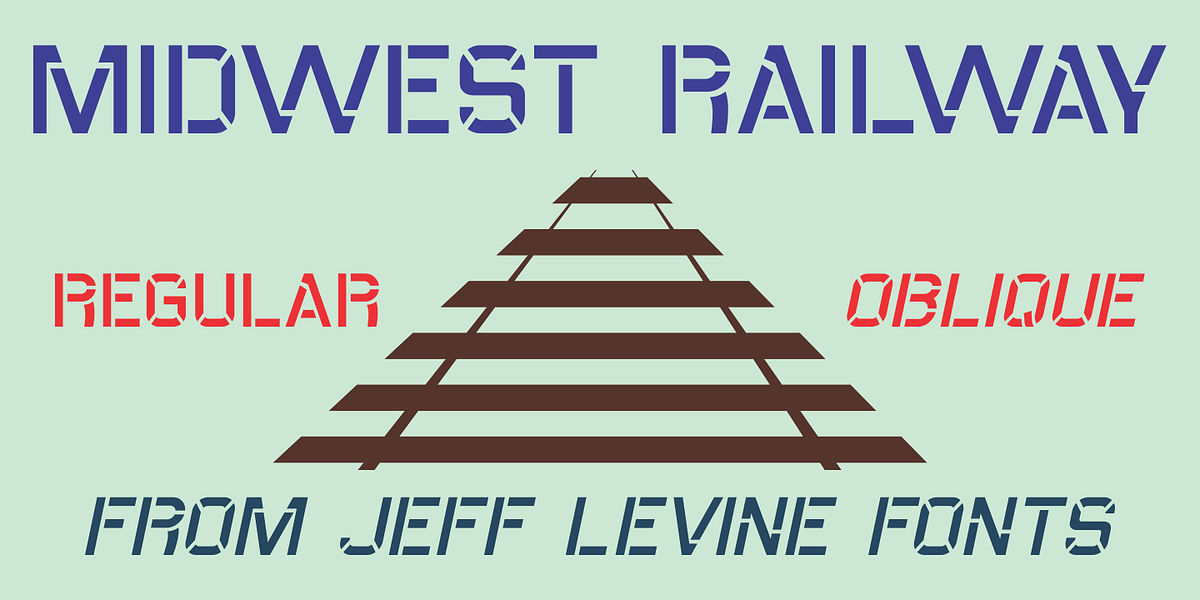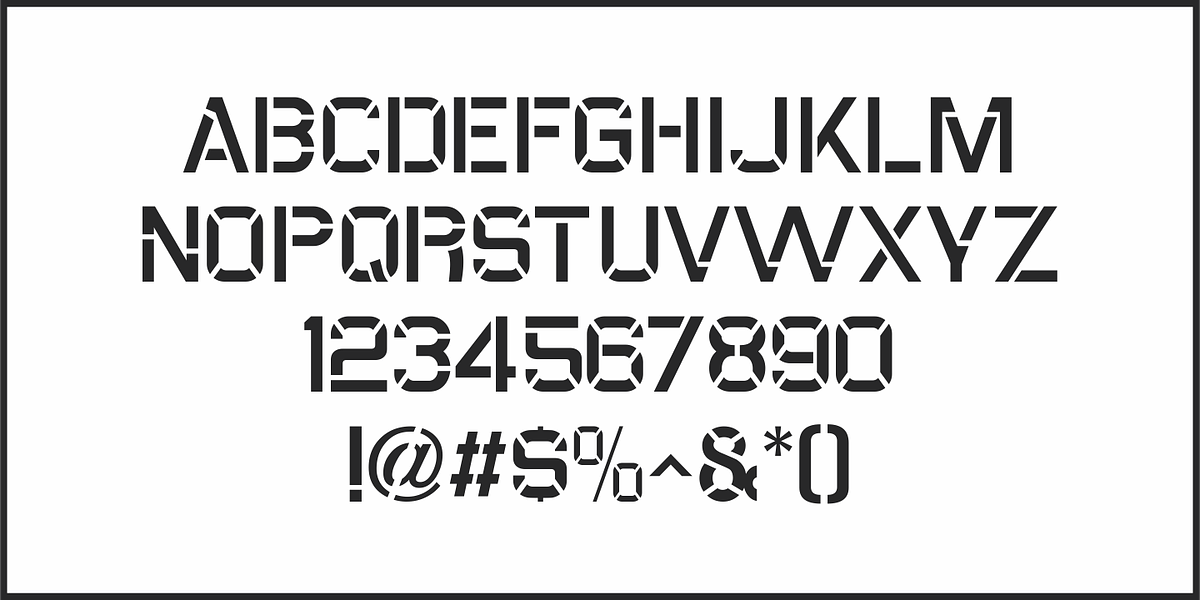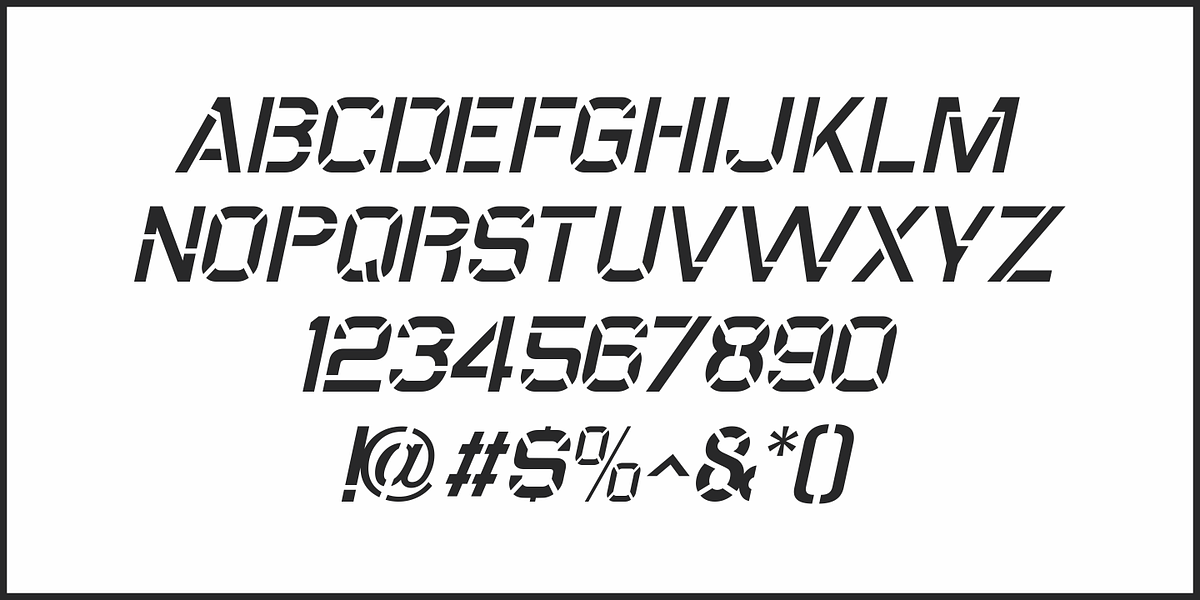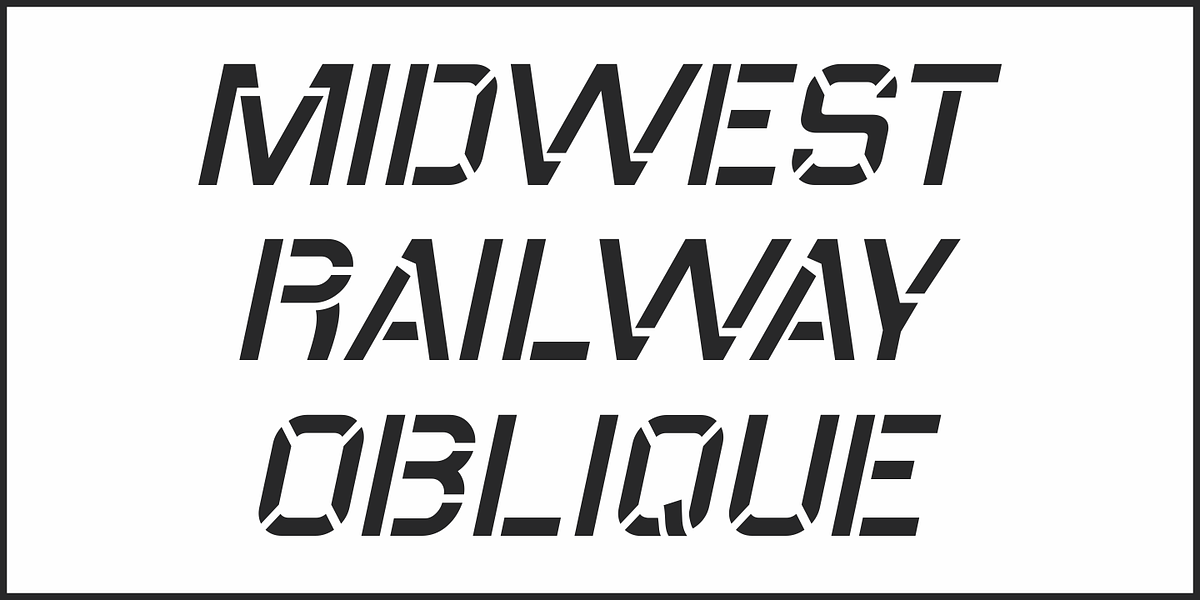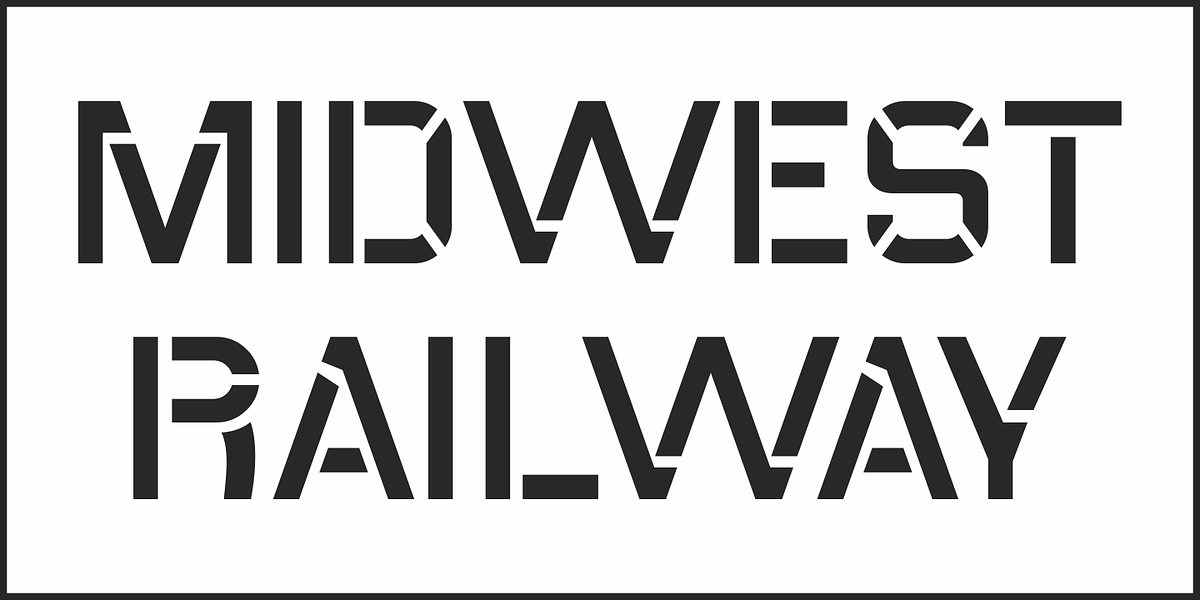
Midwest Railway JNL
An antique, hand-cut metal stencil for the Chicago-Burlington rail route stating “CB&Q RR – Private Property” inspired the sans serif stencil design Midwest Railway JNL, which is available in both regular and oblique versions.